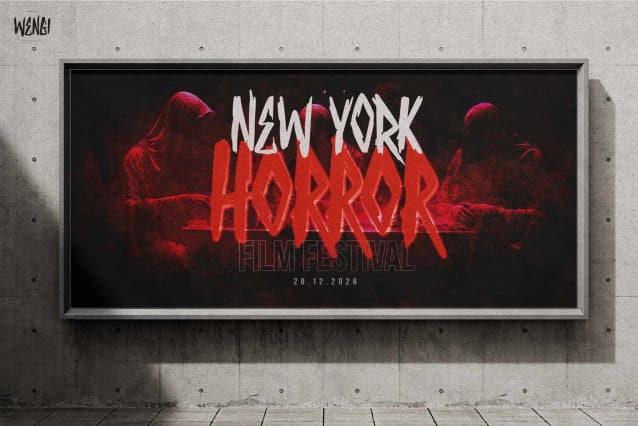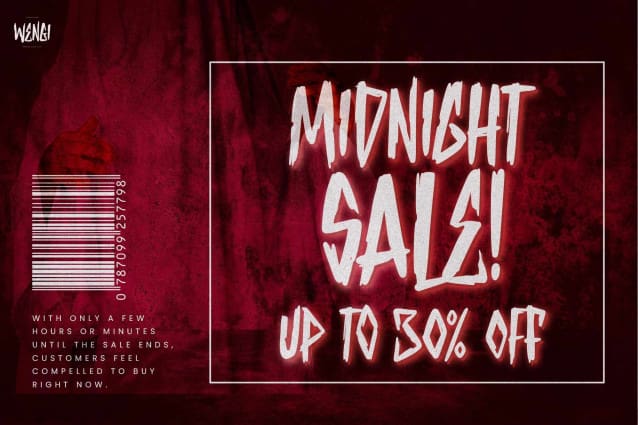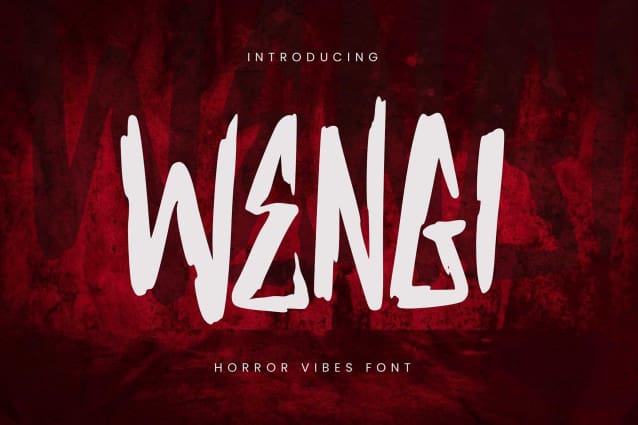
Wengi Horror Vibes Font
Wengi Horror Vibes Font, This is a Horror Vibes Font, this is a handmade font with more alternates and unique texture, this font is perfect for making a strong statement in your designs.